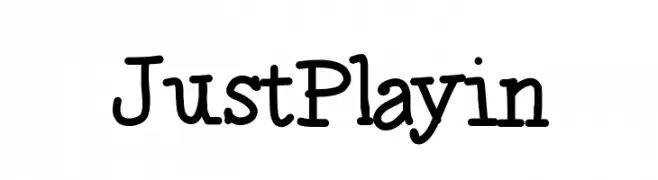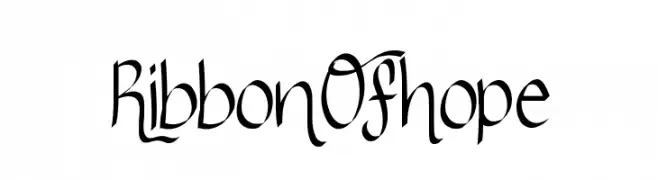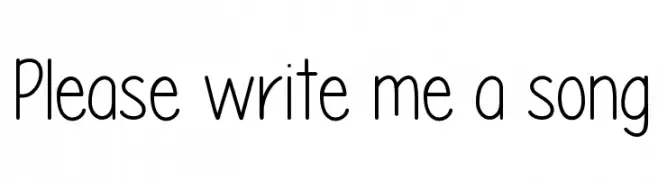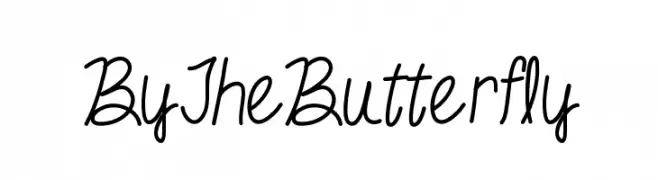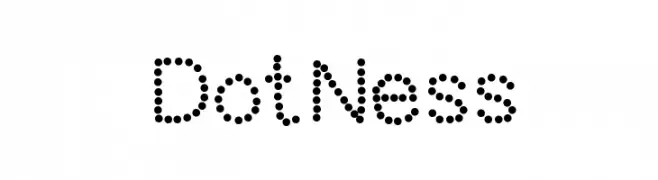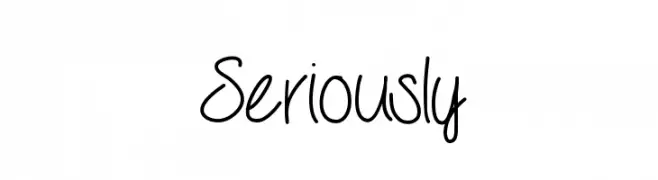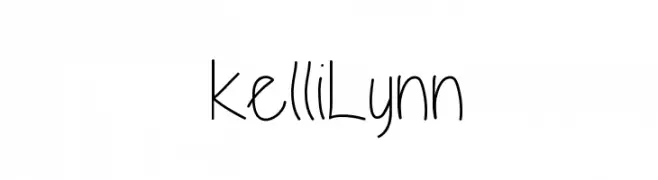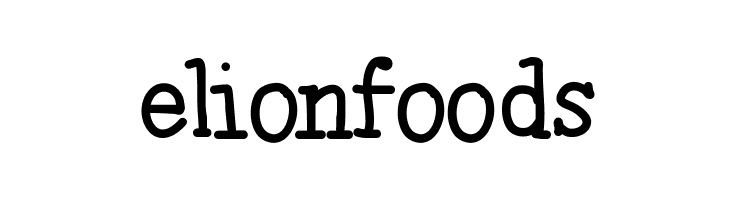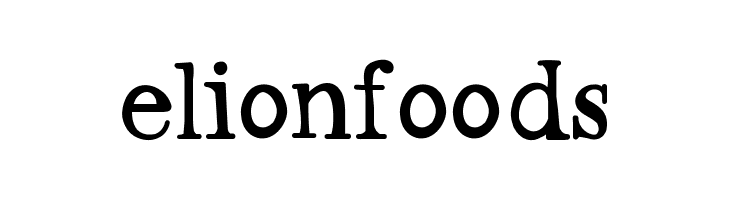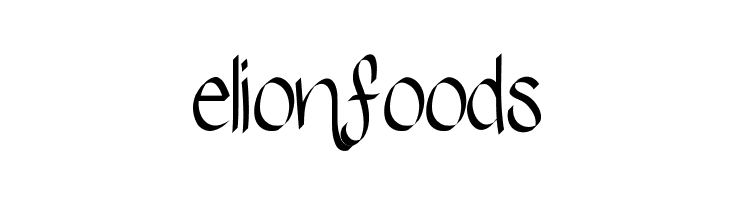
A playful, bold serif font with a whimsical, hand-drawn style.
A classic serif font with bold, elegant strokes and medium contrast.
A decorative font with flowing, ribbon-like strokes and dynamic elegance.
A playful, hand-drawn font with rounded edges and a whimsical style.
A playful handwritten font with fluid, dynamic letterforms.
A playful, handwritten font with fluid, flowing letterforms and a casual style.
A playful, dot-based decorative font with a modern flair.
A playful, handwritten font with a casual and friendly appearance.
A playful, handwritten font with thin, uneven strokes and a casual style.
A playful, handwritten font with rounded, irregular characters.